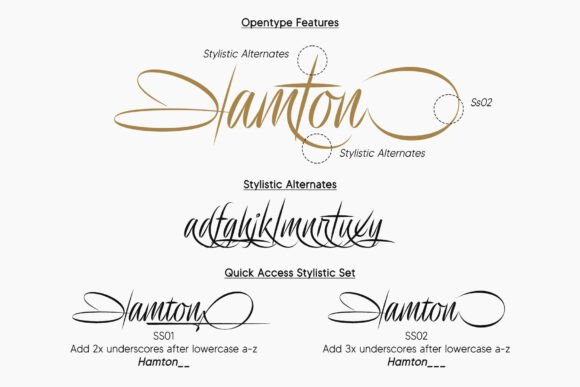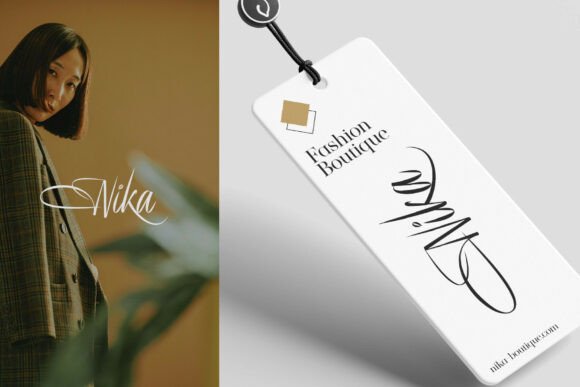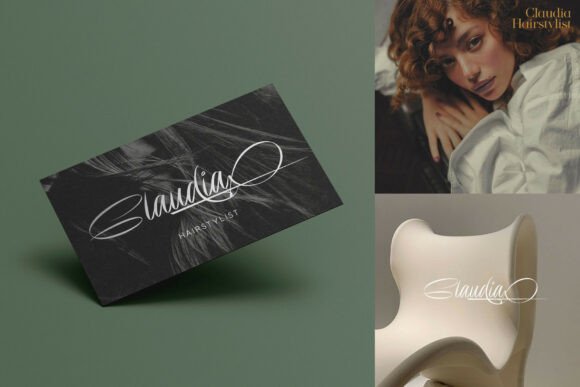
Introduction to Delion Signature Font
An elegant and expressive signature font, designed with sharp strokes and bold curves.
Delion Signature blends a modern handwriting look with a professional artistic touch, making it perfect for branding, personal logos, wedding invitations, product packaging, and other creative projects that require a standout and character-rich appearance .
Key Features of Delion Signature Font
Why Choose Delion Signature Font?
Delion Signature Font offers exceptional quality and versatility, making it a valuable addition to your design toolkit. Whether you’re creating for personal projects or commercial use, Delion Signature Font delivers professional results.